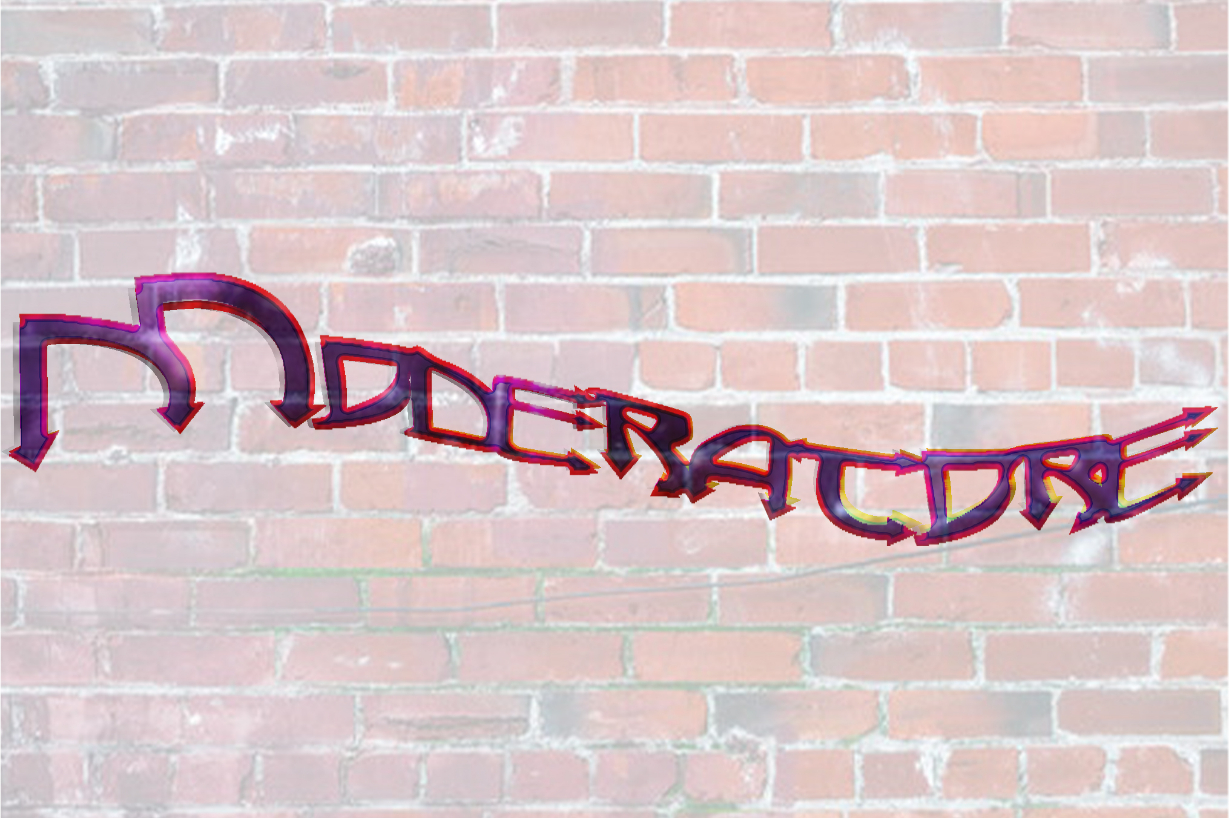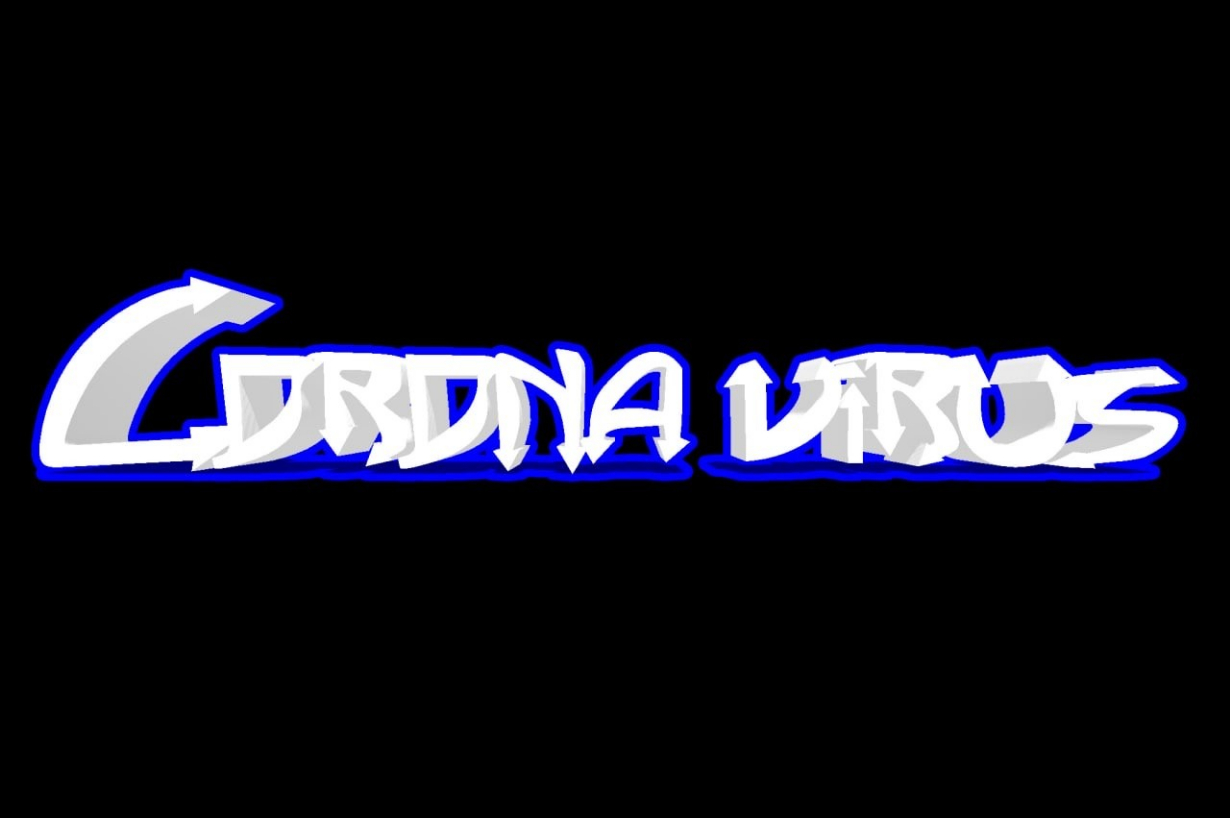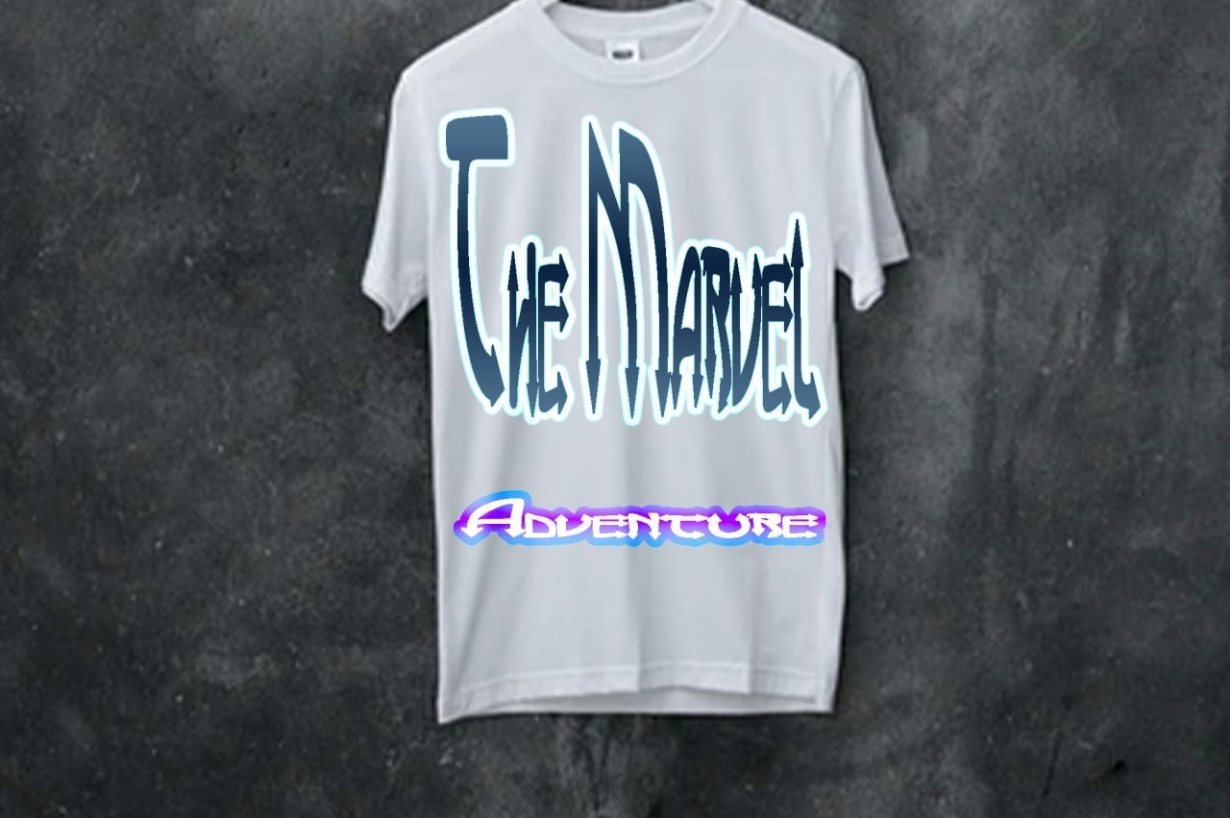
Moderatore Font
About Moderatore Font
Moderatore is a blackletter devilish font. It has a modern yet whimsical style and it will undoubtedly immerse your designs into a magical world. This font is PUA encoded which means you can access all of the amazing glyphs and ligatures with ease!